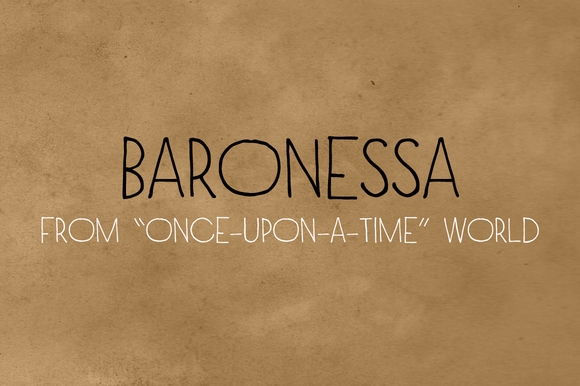
Discover the Charm of Baronessa Font: A Handmade Typeface with a Whimsical Twist
In the world of typography, few fonts manage to evoke a sense of nostalgia and warmth as effectively as the Baronessa font. This handmade typeface has been crafted to transport us to a βonce-upon-a-timeβ world, where stories were told with a sense of whimsy and characters were full of personality. With its unique blend of warmth, friendliness, and subtle irregularity, Baronessa has become a favorite among designers and typographers looking for a font that adds a touch of magic to their projects.
What is Baronessa Font?
Baronessa is a carefully crafted, handmade font that embodies the essence of a bygone era. Its design is rooted in the principles of traditional typography, yet it boasts a distinctively modern twist. The font’s creator has poured their heart and soul into shaping each letter, ensuring that Baronessa exudes a sense of warmth and approachability. This makes it an ideal choice for projects that require a personal touch, such as children’s books, branding, and packaging.
Design Characteristics of Baronessa Font
One of the defining features of Baronessa is its subtle irregularity. Unlike more formal, uniform fonts, Baronessa’s letters have a gentle, hand-crafted feel that gives text a sense of movement and personality. The font’s shapes are carefully chosen to convey a sense of sweetness and humor, without veering into excessive childishness. This balance makes Baronessa versatile enough for a wide range of applications, from editorial design to advertising.
Another notable characteristic of Baronessa is its complete lack of swashes or ornaments. This simplicity allows the font’s inherent charm to shine through, making it perfect for designers who want to keep their message clear and uncomplicated. The clean lines and straightforward letterforms ensure that text set in Baronessa is easy to read, even at smaller sizes.
Typographic Details: What Makes Baronessa Stand Out
When examining Baronessa more closely, several typographic details stand out that contribute to its distinctive character:
- Letterforms: Each letter in Baronessa has been meticulously designed to contribute to the font’s overall warmth and charm. The letterforms are recognizable and clear, making them suitable for a wide range of contexts.
- Spacing and Kerning: The spacing and kerning in Baronessa have been carefully adjusted to ensure optimal readability and aesthetics. The font’s rhythm is smooth and even, enhancing the reading experience.
- Weight and Versatility: Baronessa offers a single weight that strikes a balance between elegance and approachability. This makes it versatile enough for various applications, from headings to body text.
Conclusion: The Enduring Appeal of Baronessa Font
Baronessa font represents a delightful blend of whimsy, warmth, and readability, making it a valuable addition to any designer’s typographic arsenal. Its handmade nature, combined with a thoughtful design approach, sets it apart in the world of digital and print typography. Whether you’re creating a children’s book, crafting a brand identity, or simply looking for a font that adds a personal touch to your work, Baronessa offers a timeless charm that’s hard to resist.